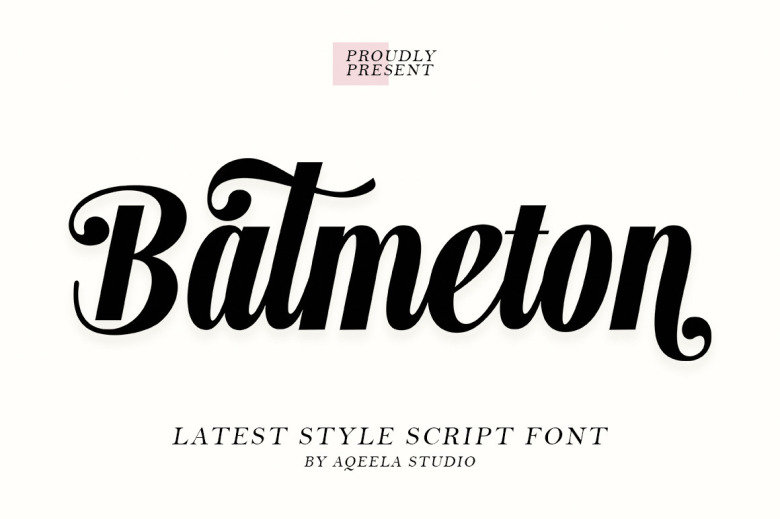
Batmeton Font
Batmeton Font certainly captures both retro and modern styles within its expressive calligraphic script. With swirling flourishes and angular terminals, it effortlessly blends nostalgia with novelty. Khusyida lends any design elegant sophistication sure to impress whether promoting posh parties or peddling practical prints. Versatile in application, from lively logos to lovely letterheads, it brings beauty to banquets, badges, and beyond.
While maintaining brevity, Batmeton flexibly forms fanciful phrases. Its abundant alternatives allow artfully arranging attention-grabbing announcements regardless of content. Splashes of swashes spice straightforward statements with spirited spirit.
Batmeton Calligraphy Script Font